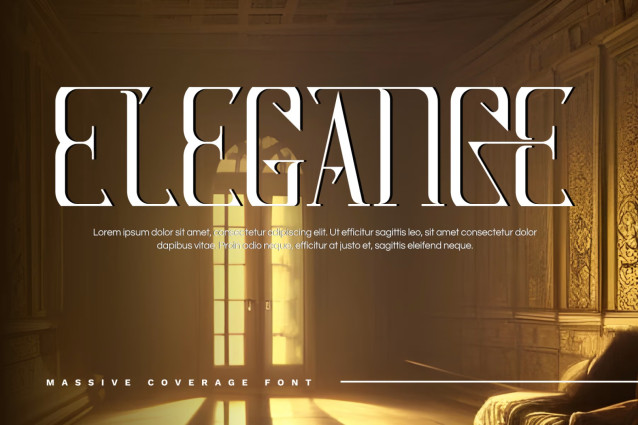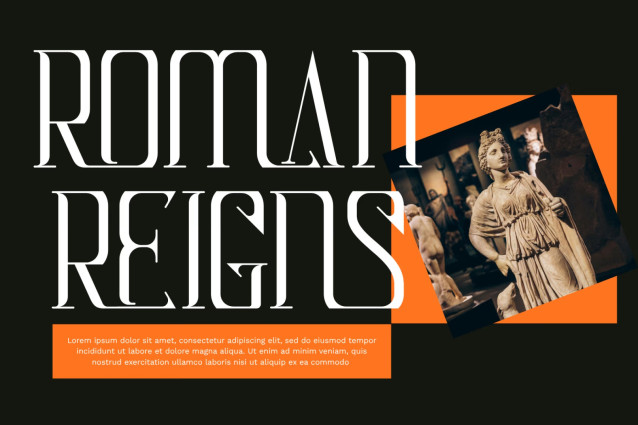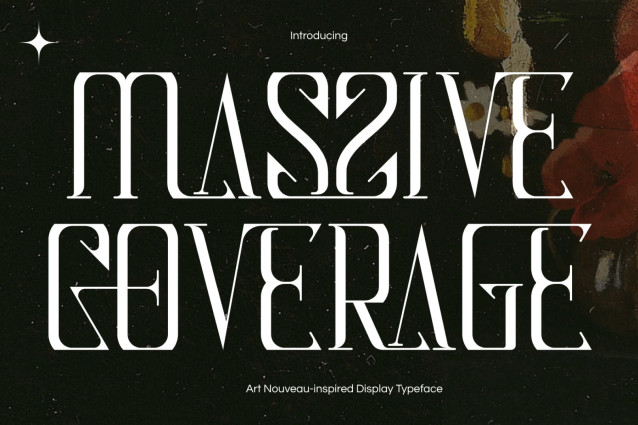
MASSIVE COVERAGE – MODERN SERIF FONT
MASSIVE COVERAGE – MODERN SERIF FONT is a sophisticated Art Deco-inspired serif display font that combines timeless elegance with bold decorative details. Featuring tall proportions, dramatic high-contrast strokes, and beautifully crafted geometric accents, this typeface captures the glamour and refinement of classic luxury typography. Designed with distinctive letterforms, stylish cutouts, and elegant vertical structures, MASSIVE COVERAGE delivers a striking editorial presence while maintaining a refined and graceful appearance. Its unique blend of vintage Art Deco aesthetics and contemporary sophistication makes it ideal for premium branding and high-end visual identities.